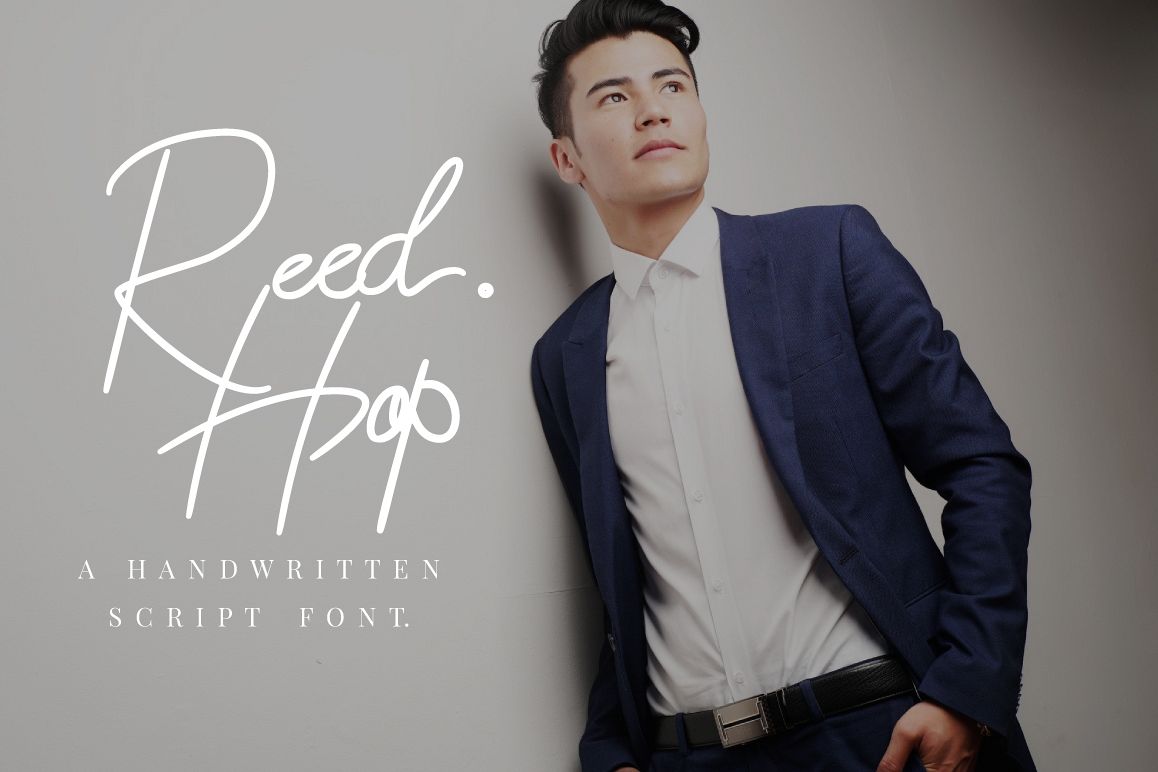
Reed Hop is a new fresh handwritten script font with script style make this font looks natural, classy, natural and perfect for any awesome projects that need handwriting taste. Reed Hop font is perfect for many different project such as logos & branding, social media posts, advertisements, label, photography, watermark, special events or anything. What’s Included : - Reed Hop.otf - Reed Hop.ttf - Reed Hop.woff - More than 400 glyphs - Ligature & Contextual alternate - Fonts include multilingual support for; Afrikaans, Albanian, Danish, Dutch, English, German, Hungarian, Indonesian, Italian, Norwegian, Polish, Portugese, Spanish, Swedish, Zulu Thank you for your purchase!